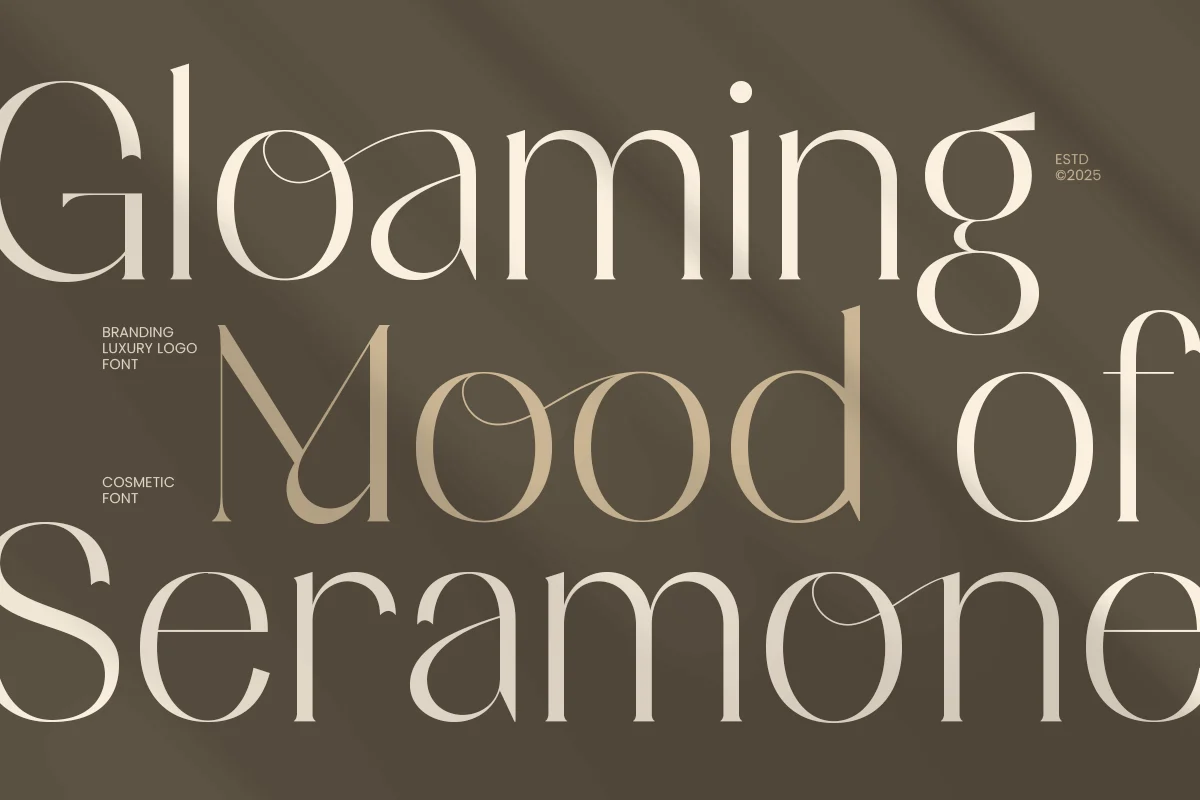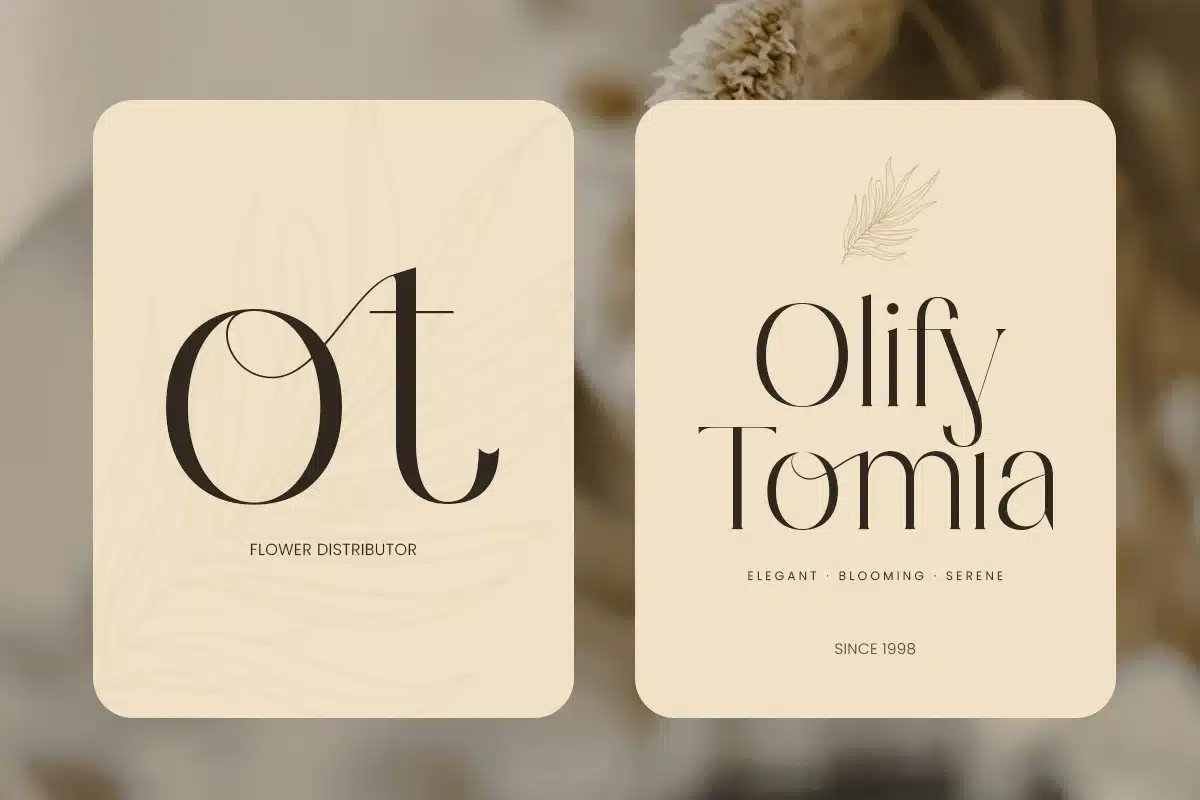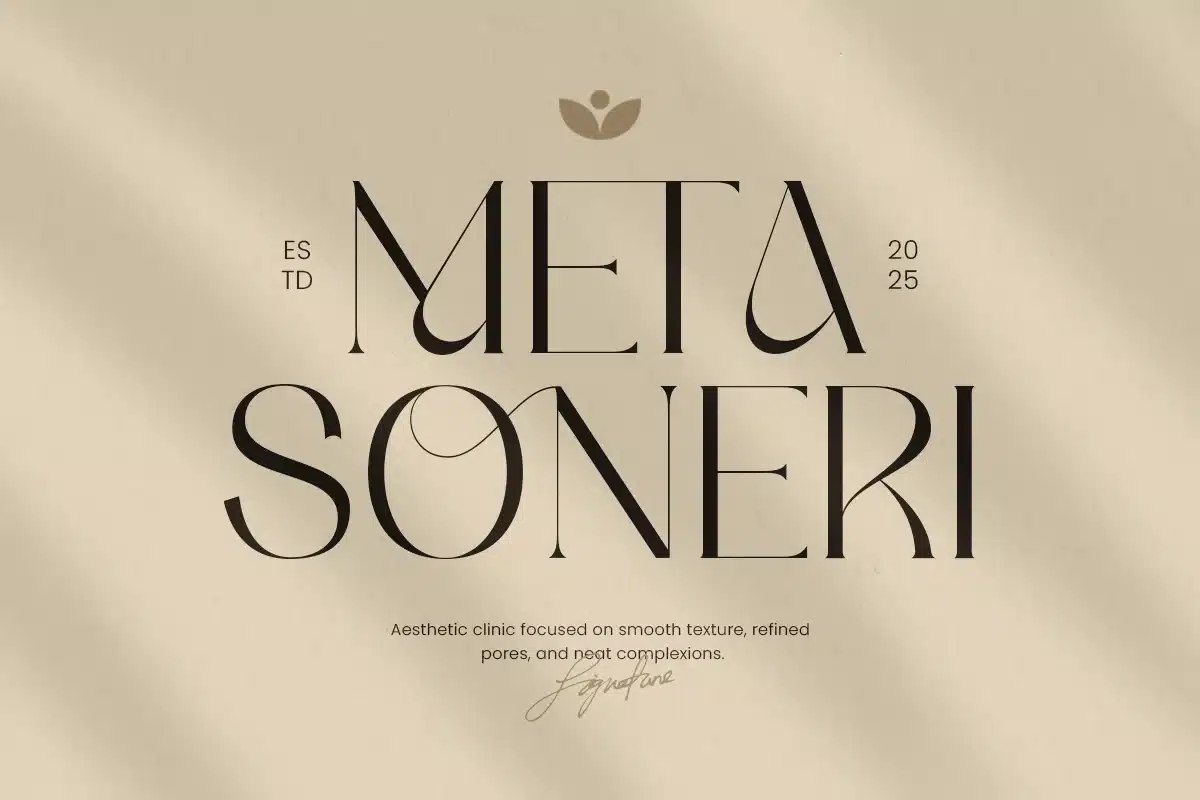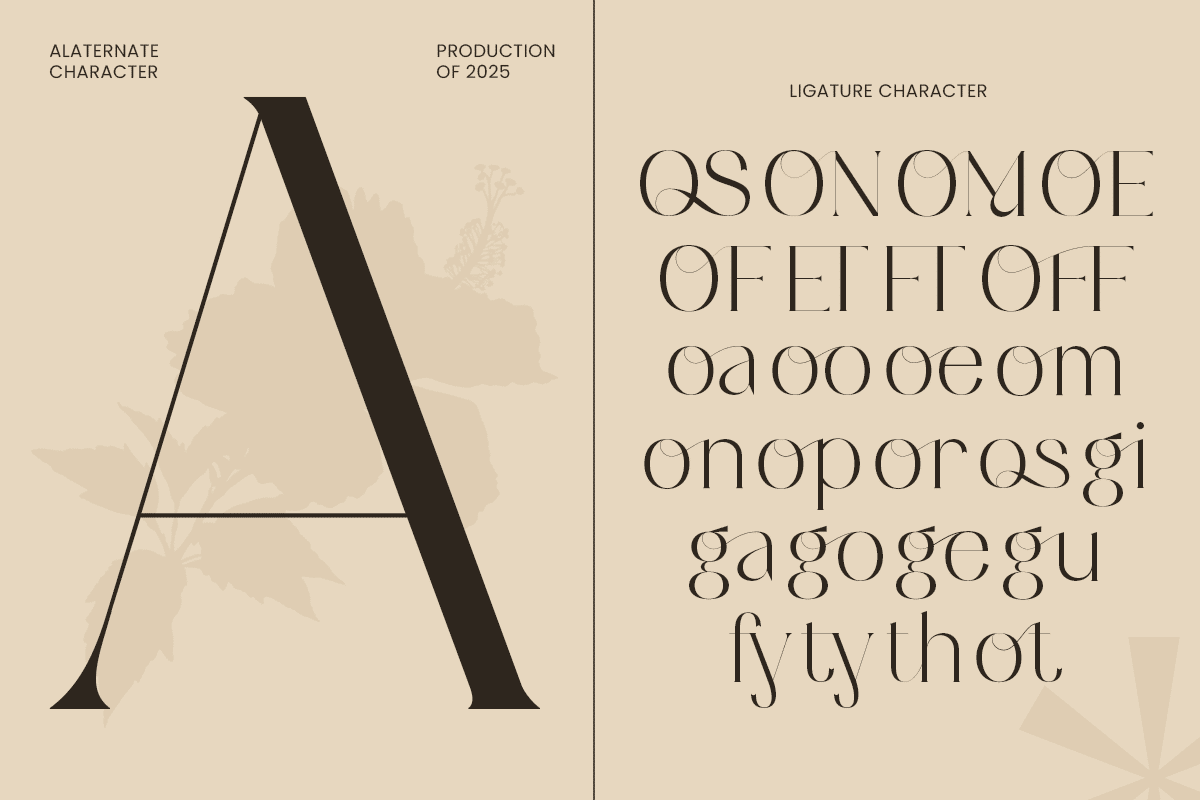
Cosmetic – Branding Luxury Logo Font
COSMETIC is a branding luxury logo font crafted to express elegance, refinement, and premium beauty aesthetics. With polished letterforms and a modern luxurious feel, this typeface delivers a sophisticated tone that feels clean, confident, and perfectly suited for high-end branding.
Designed for beauty-focused identities and premium brand systems, COSMETIC works beautifully across logos, wordmarks, product packaging, labels, editorial headlines, website headers, posters, signage, and social media visuals. Its refined structure helps brands communicate quality and trust while maintaining a stylish, modern edge across both digital and print layouts.
Whether you’re building a cosmetic brand, skincare identity, wellness line, or luxury lifestyle concept, COSMETIC provides a timeless logo font that elevates branding with elegance and professional clarity.
Inspiration Behind COSMETIC
COSMETIC is inspired by modern beauty branding and luxury editorial typography—where simplicity, elegance, and balance define premium identity design. The font is created to support clean logo systems and refined brand communication, helping beauty and lifestyle brands appear polished, trustworthy, and visually elevated.
COSMETIC Font Features
- Luxury letterforms designed for branding and logo use
- Clean, elegant structure with premium visual tone
- Strong readability for headlines and brand statements
- OpenType features for polished professional typography
- Cosmetic, skincare, and beauty brand identities
- Luxury logos and boutique branding systems
- Product packaging, labels, and premium presentations
- Editorial headlines and modern promotional layouts
- Website headers, banners, and social media campaigns
Refine your beauty branding with COSMETIC—crafted for luxury logos with timeless elegance and premium appeal. ✨